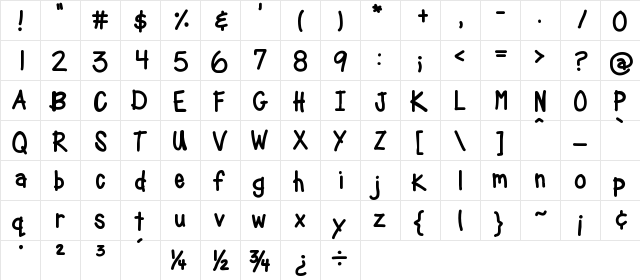
jsbdoublejointed Medium
Design Context for jsbdoublejointed Typeface
jsbdoublejointed is a composed and adaptable typeface that performs quietly and consistently across a wide range of design contexts.
Pro Tip: Use jsbdoublejointed in both headline and body roles to test its range before committing to a single application.